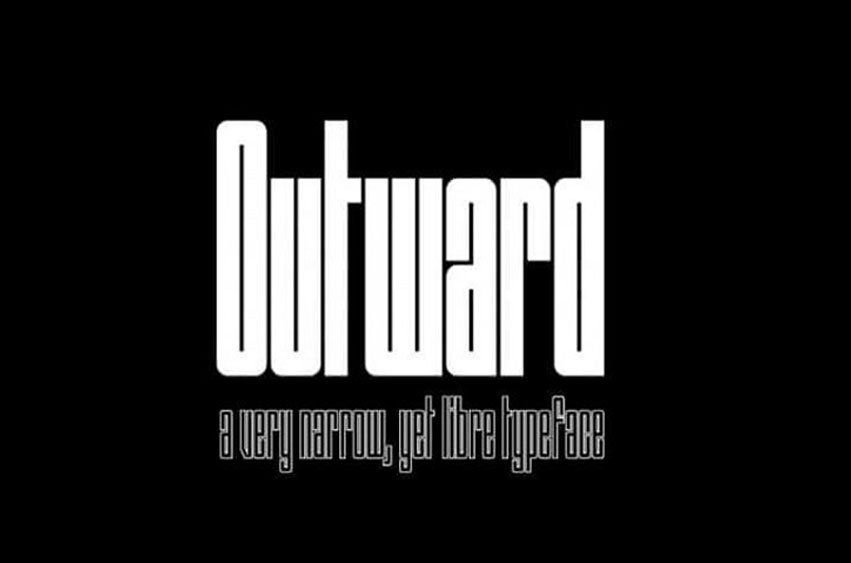
Outward Font is designed with extreme height for an ultra condensed font. It’s designed and shared by Raoul Audouin. This font is a very narrow, yet libre typeface. This display font family coming in three cuts: Block (regular), Round (italic) and Borders (bold).
Outward Block was initially designed in capitals only with the intent of reducing white spaces to reach a black type color, as opposed to the ideal grey sought after by typographers. Outward includes a complete collection of kerning pairs intended to minimize spaces between letters. Outward supports an extended set of Latin and Cyrillic characters, covering every modern language using one of the two alphabets.